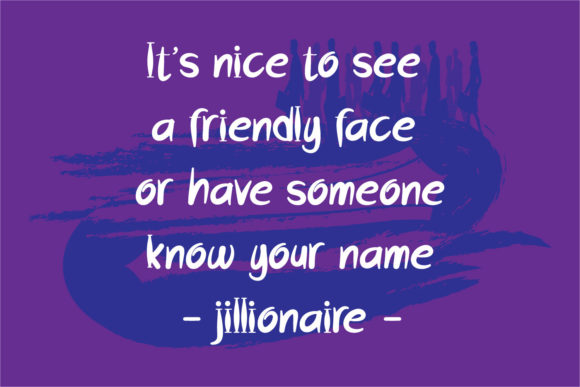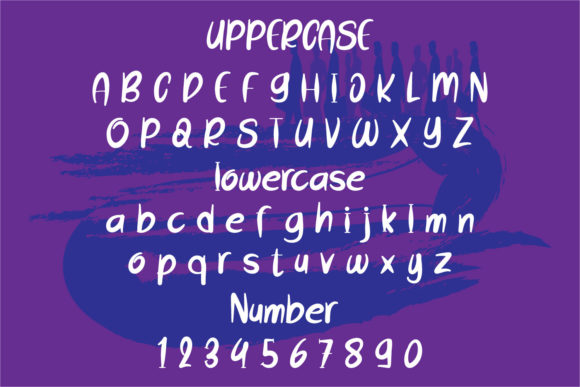
Friendly Font
db-ku.com - Script & Handwritten -- Friendly is a cute and fun handwriting font. It embodies playfulness and authenticity and is the perfect choice for any children activity or school project. Add this quirky lettered font to your designs and notice how it makes them come alive.